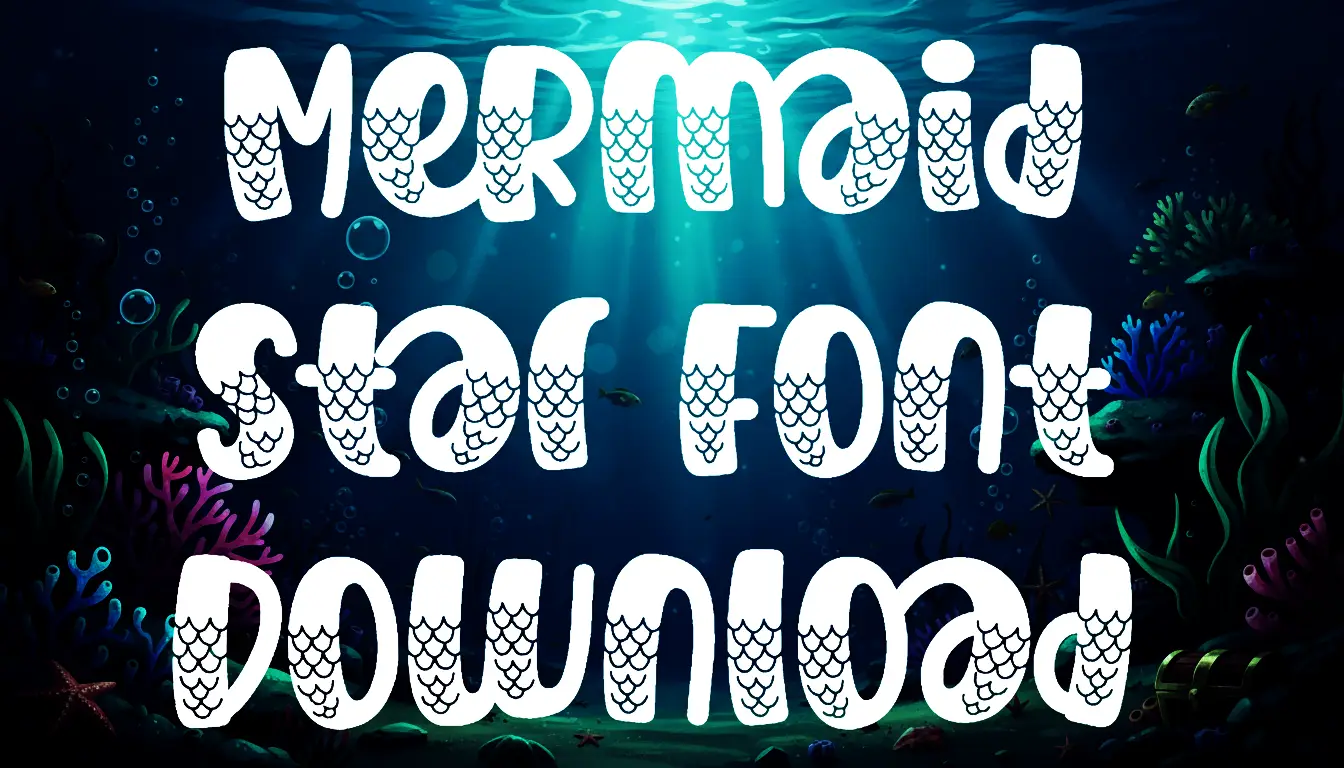
Mermaid Star Font
Mermaid Star
Mermaid Star is a fancy font created by Burhan Afif and released through HansCo. It's a decorative display font with plenty of personality, made to grab attention. It's a free download, and you can try it with your own text in the preview above first.
What You Can Type With Mermaid Star
You get every letter from A to Z in both cases and all the numbers from 0 to 9, which means Mermaid Star can handle full sentences, dates and prices. Everyday marks like &, !, ? and @ are there too. Thanks to its accented letters, it also works for Spanish, French, Portuguese and Italian, not just English.
Where Mermaid Star Works Best
Designers usually reach for fonts like Mermaid Star when they're making posters, logos and eye-catching headlines. Use it for one standout word or headline and let simpler fonts handle the rest.
Does Mermaid Star support accented letters?
Yes. Mermaid Star includes the accented letters needed for Spanish, French, Portuguese and Italian, so it works for more than just English.